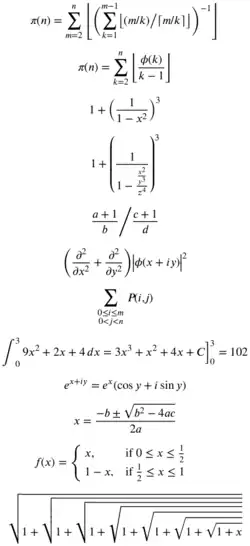
XITS font project
| Category | Various |
| Classification | Transitional |
| Designer(s) | Khaled Hosny |
| Foundry | Alif Type |
| Date created | 2010 |
| Date released | 2019 |
| Design based on | STIX Fonts project |
| Also known as | XITS Math |
The XITS font project is an OpenType implementation of STIX fonts version 1.x with math support for mathematical and scientific publishing.[1] The main mission of the Times-like XITS typeface is to provide a version of STIX fonts enriched with the OpenType MATH extension.[1]
Features
- OpenType mathematical layout features needed for use with new formula editor in MS Office 2007 and the new TeX engines XeTeX and LuaTeX, providing high quality mathematical typesetting.
- Right to left and Arabic mathematical notation support (since version 1.011[2]).
- General OpenType features in text fonts (Kerning, Standard Ligatures, Fractions, Small Caps, and Inferior, Superior and Oldstyle Figures).[3]